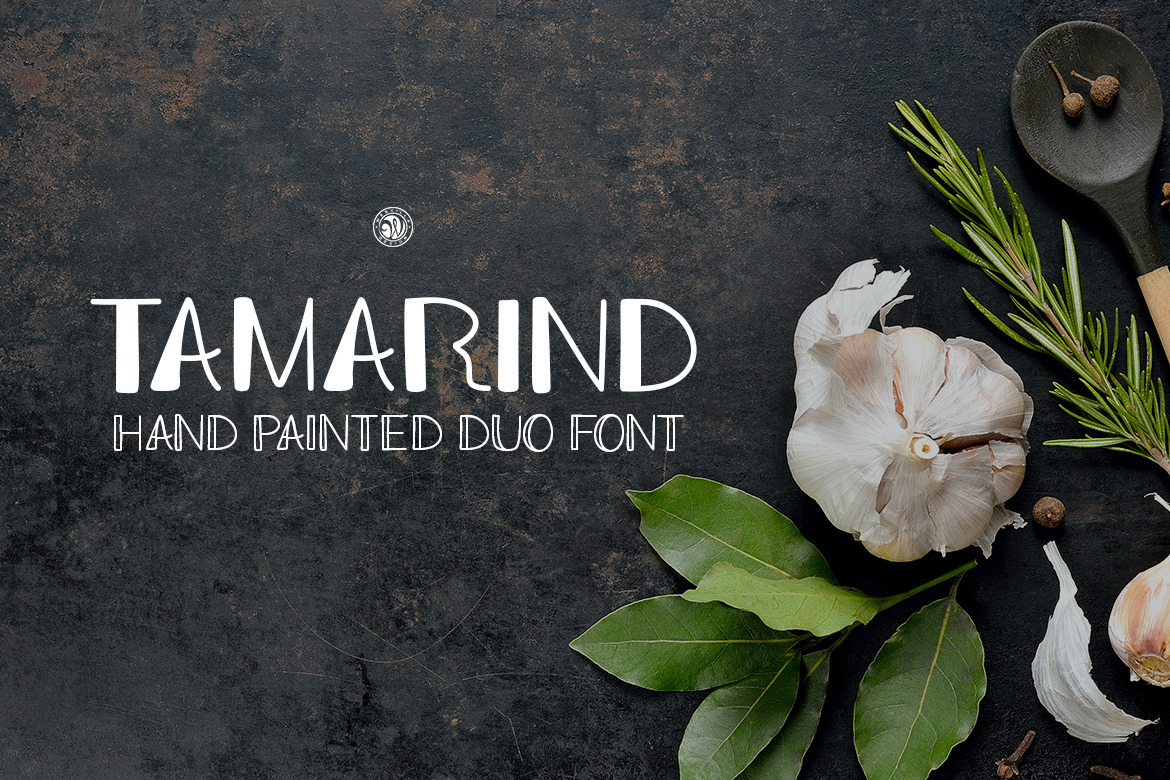
Tamarind Font Duo
Tamarind font duo - hand lettering font. Ideal for invitations, logos, branding, blogs, handmade craft items, scrap booking, printed paper items and more.
- all caps font, numbers, punctuation